Creating flyers requires a lot of attention to detail, so fonts are one of them. Choosing the right font can take your flyers to the next level, because that’s what professional design needs.
Free Bogota Font
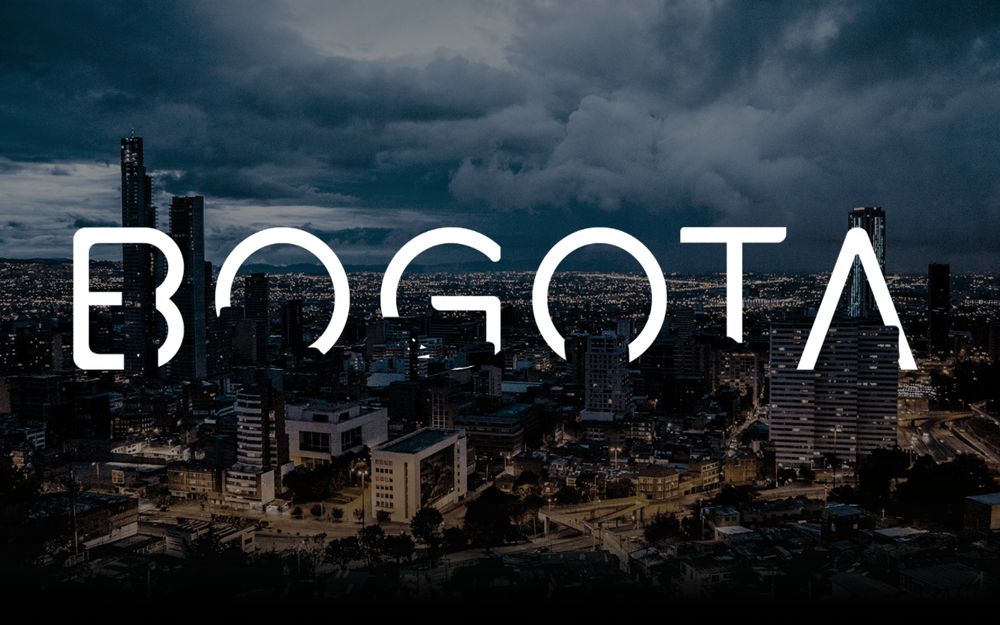
Fresh and clean free font for personal and commercial use. Perfect for posters, flyers, logos, packaging, brochures and etc.
Free Marson Display Font
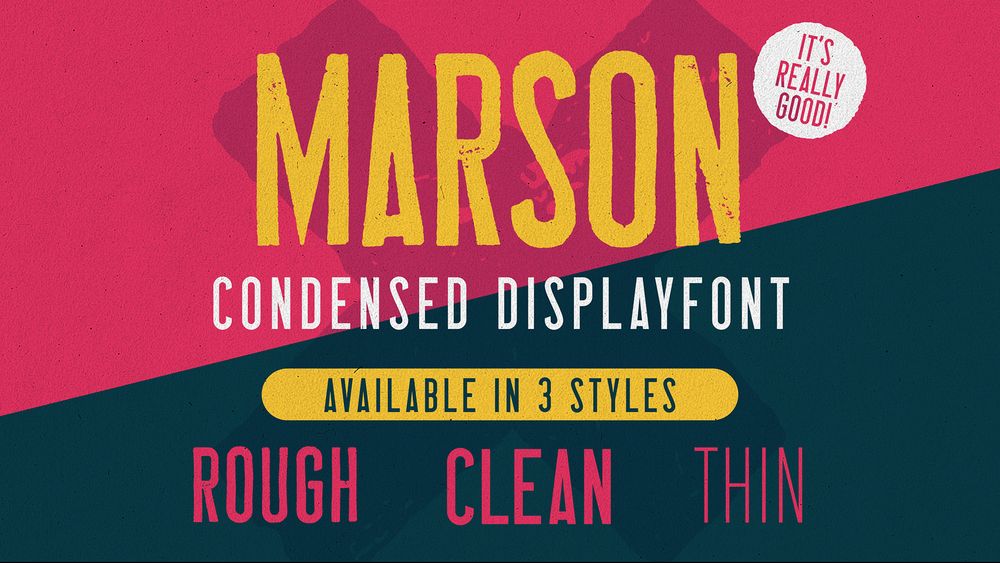
Free condensed and display font available in 3 styles. Perfect for posters, flyers, logos, packaging, brochures and etc.
Free Quantify Font
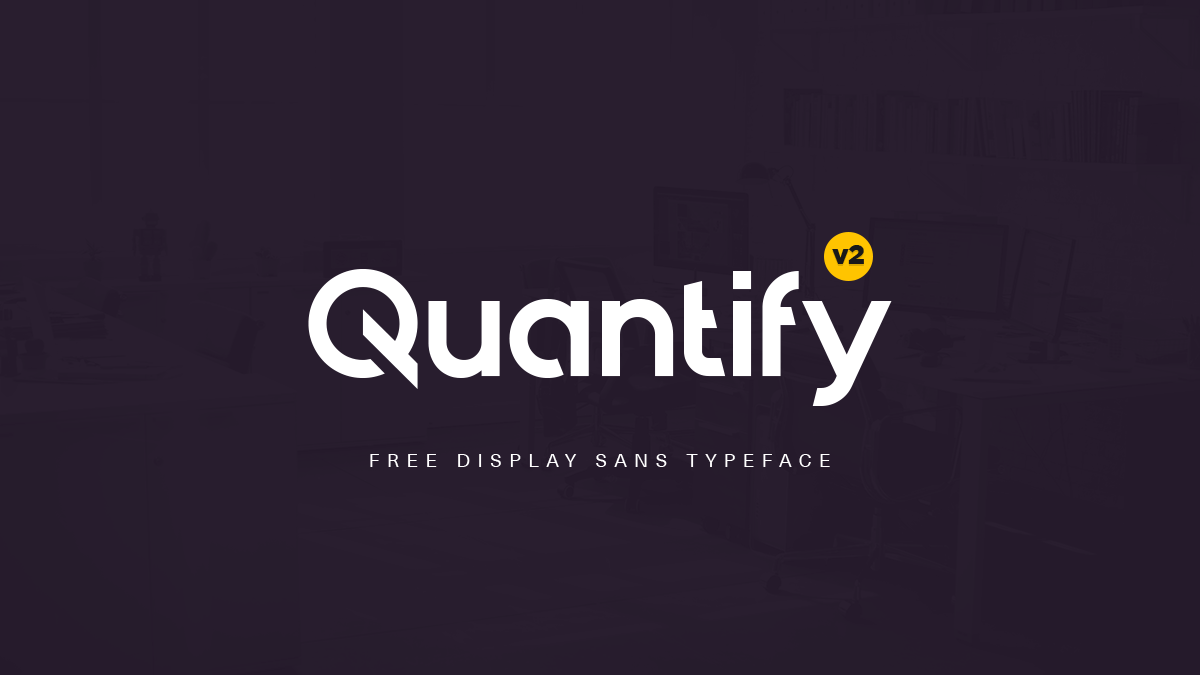
Quantify is a sans serif display typeface which includes all caps, lowercase and glyphs. The font can be described as multipurpose specially for logos, posters and flyers.
Free Myste Font
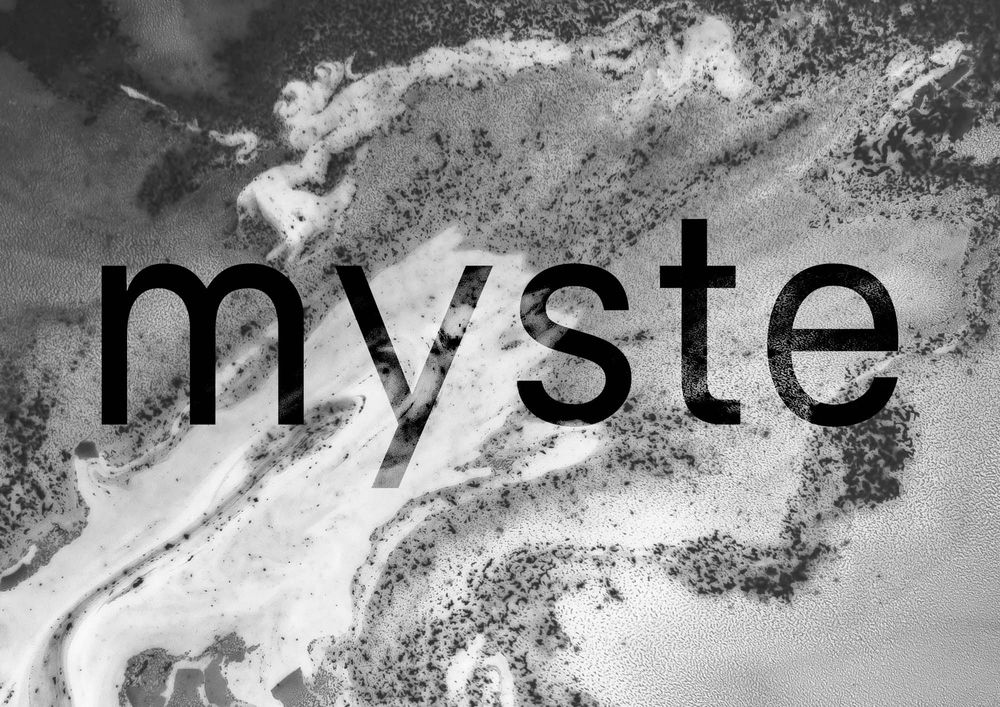
It can smoothly fit into your library of most used typefaces as it can easily be integrated into many of your design projects. Myste works for both heading and body texts. Best for posters, fyers, headlines, titles, covers and etc.
Free Bariol Font
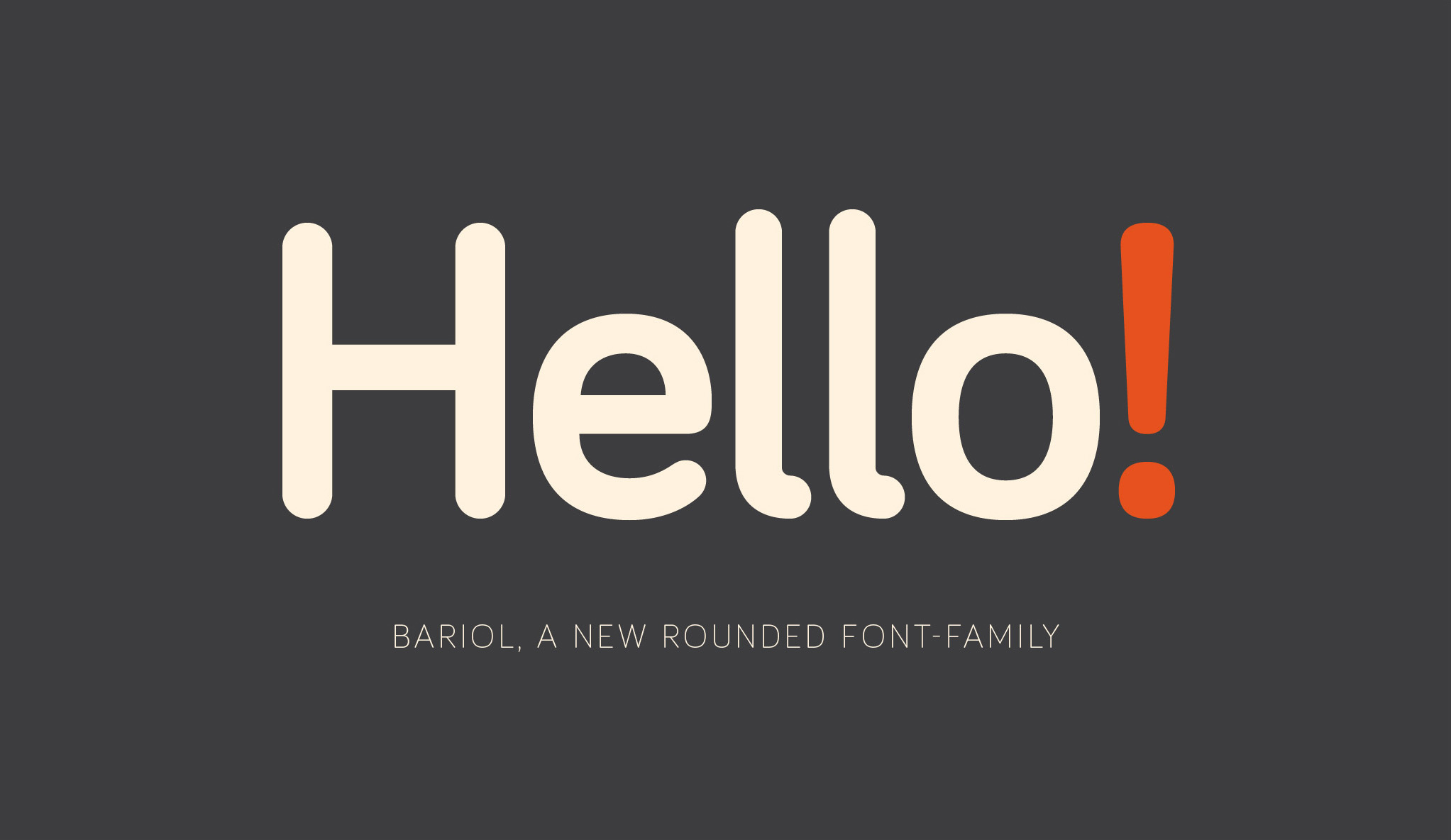
Bariol free rounded font family perfectly fit for posters, fyers, headlines, titles, covers and etc.
Free Genuine Font
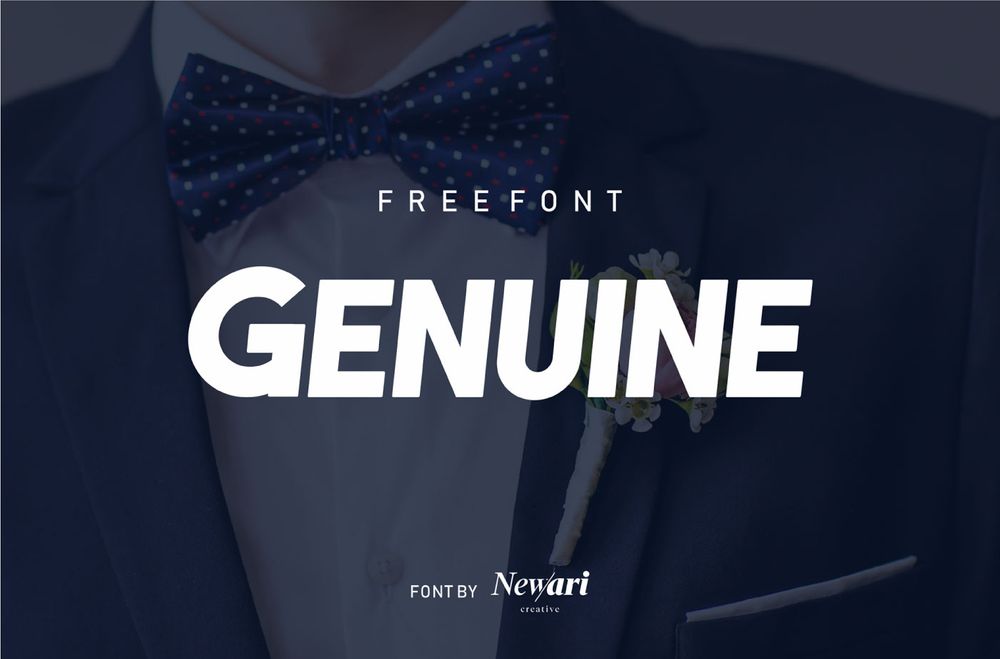
It is an bold and elegant font. Genuine offers an attractive tool for producing elegant decorative lettering for logos, book covers, posters, flyers, packaging and etc.
Free Form Font
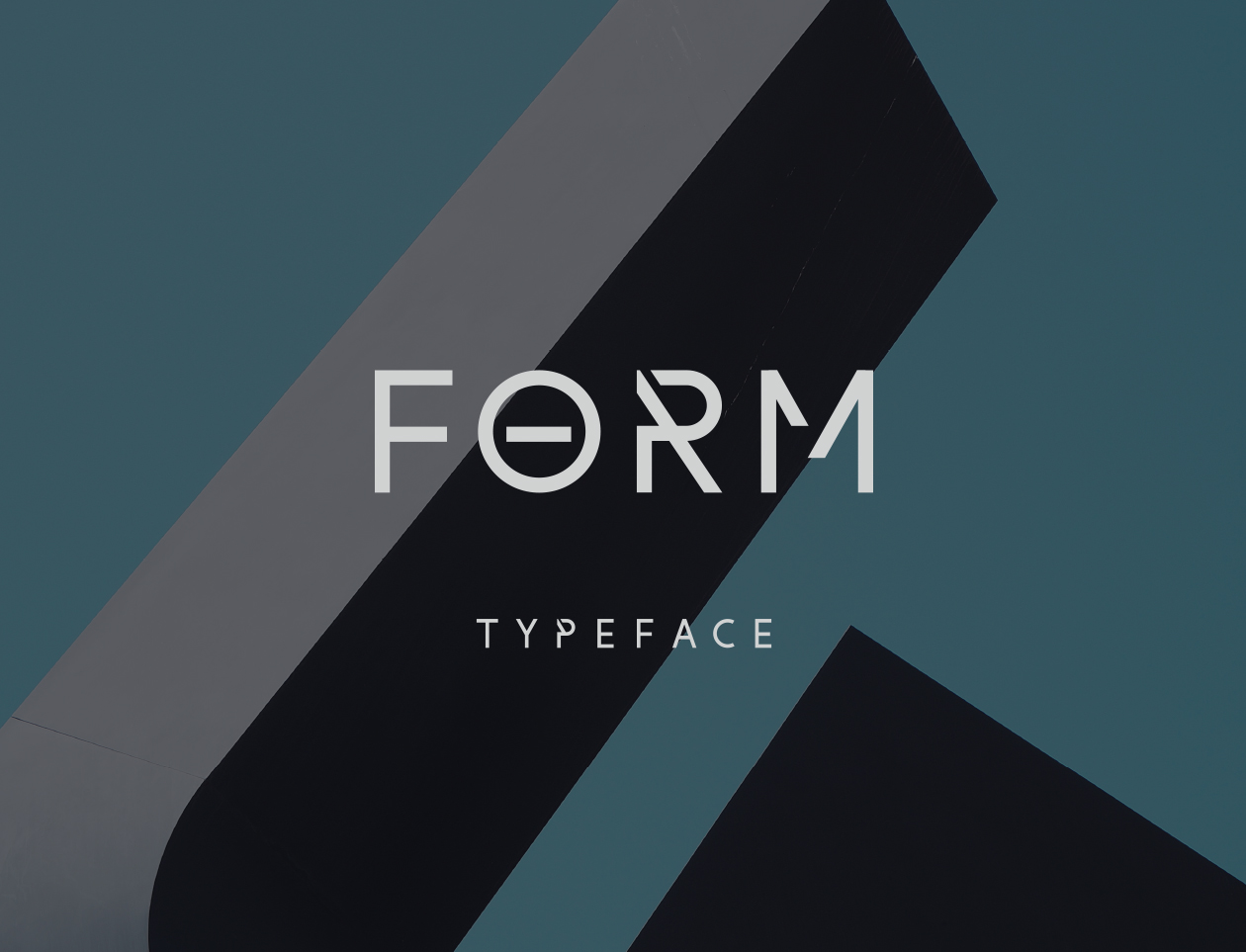
Uppercase elegant typeface with diagonal cuts. Sans serif font specially crafted for designers to create logos, posters, flyers, packages, brochures and etc.
Burford Extrude A
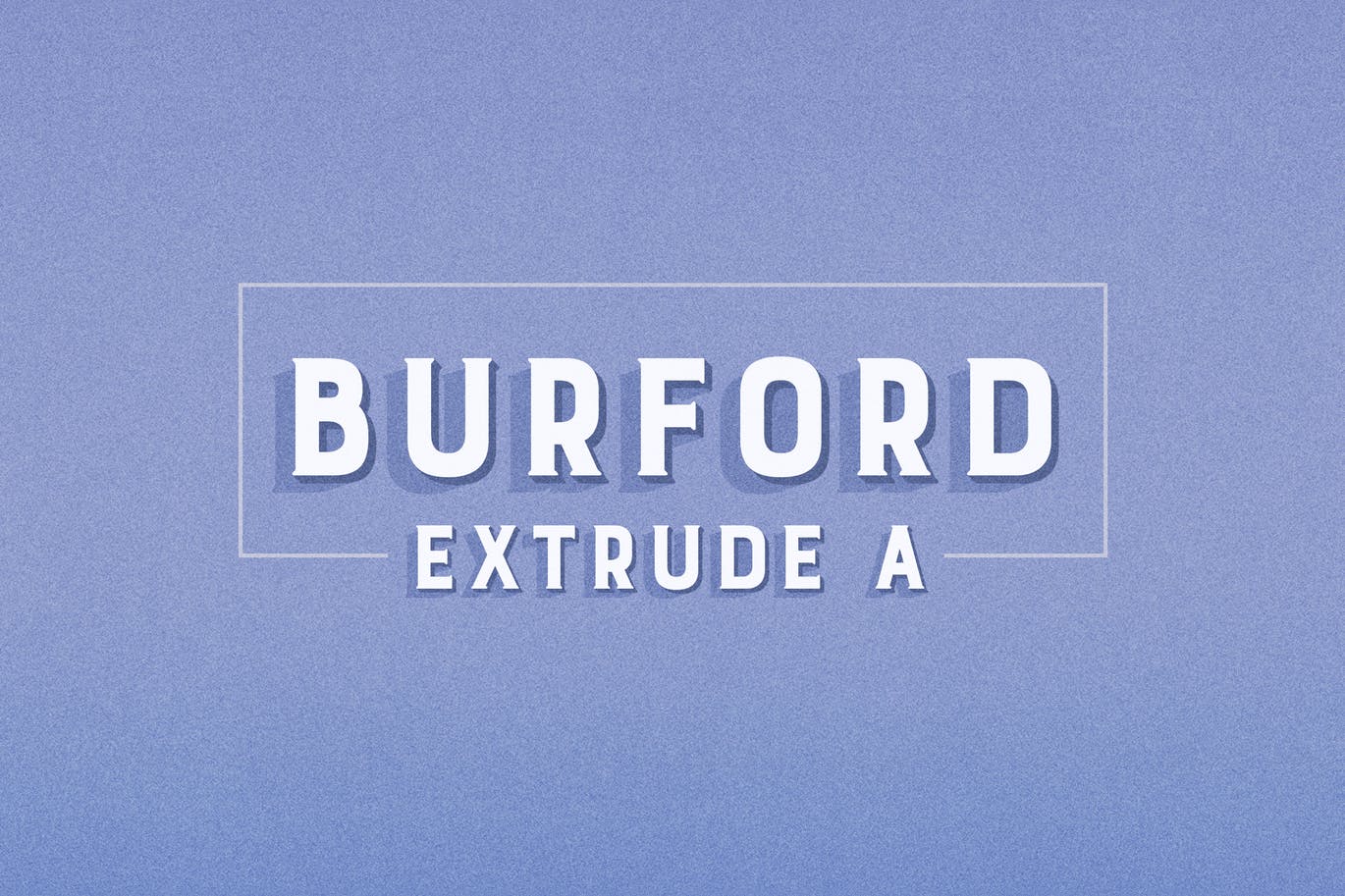
Burford is a beautiful layer-based font. Perfectly for posters, flyers, brochures, headlines, covers, titles and etc.
Sovereign Typeface
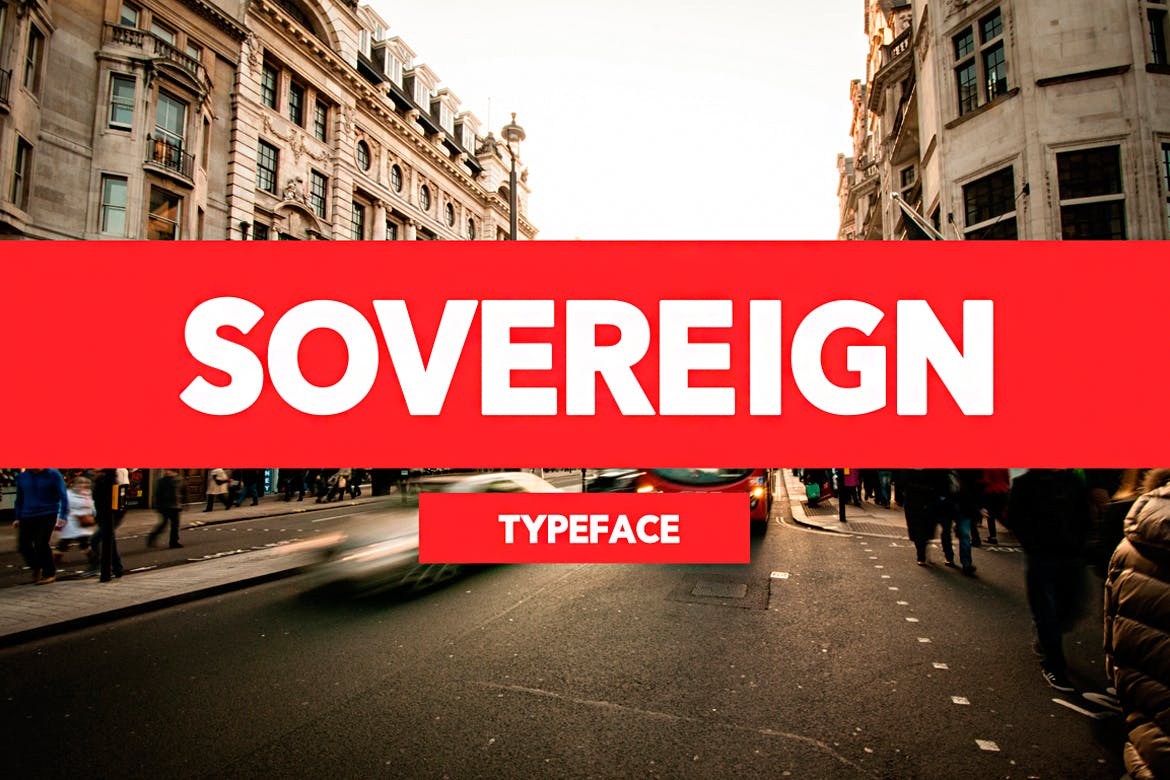
This is an amazing typeface for bold and modern ideas, creative thinking and urban lifestyle. Ideal for branding ideas, posters, flyers, logos, labels, t-shirts, brochures and etc.
Free Corduroy Slab Font
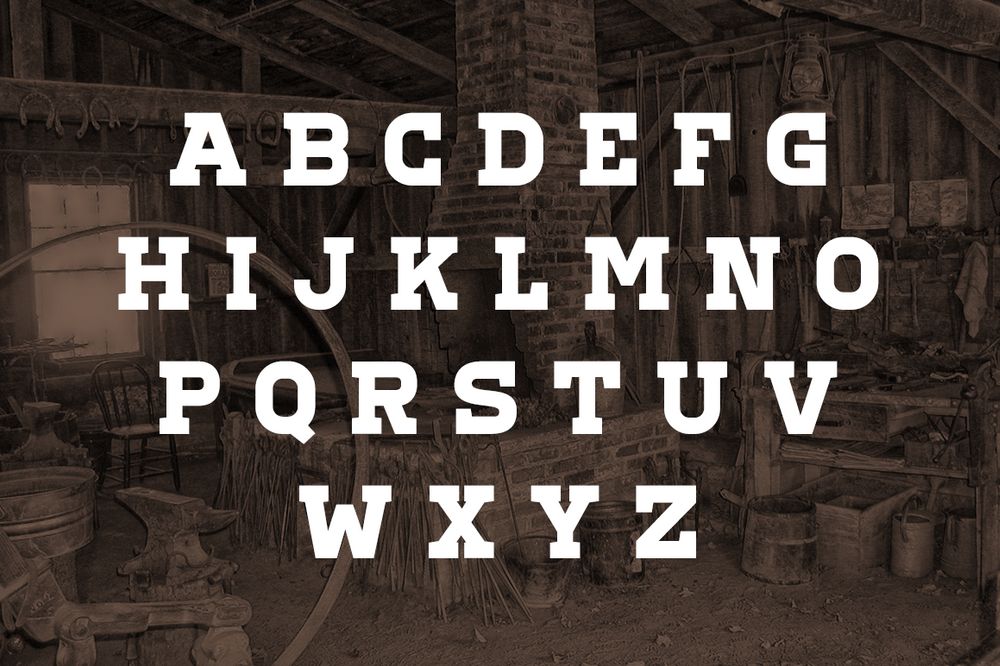
It is a free to use bold style sab serif font. perfect for designs where need a strong attraction like headlines, posters, flyers, lettering, logo design ans etc.
Free Tropikal Font
Tropikal is a modern rendition of an old-style serif typeface inspired from the nineteenth-century Philippine banknotes, newspapers and packaging designs. Perfect for headlines, titles, covers, posters, flyers, brochures and etc.
Cred Typeface
Cred is a unique fat typeface that includes multilingual uppercase letters, numbers and punctuation. It comes in regular and corroded styles. Ideal for event flyers, quirky branding projects and ’80s styled graphics.
Cyber – Technology Font
Cyber is a digital technology font. Ideal for futuristic projects, cyber monday promotion designs, flyers, posters, headers and etc.
Alfa – Minimal Science Font
Alfa is a futuristic minimal science fiction font. Ideal for any kind of futuristic projects, cyber monday promotion designs, flyers, posters, headers and etc.
Sprayer – Playful Font
Sprayer font inspired by graffiti style with a fun theme perfectly going for graffity poster, hip hop music, kids poster, flyer, children book, cartoon, comic and etc.
Ragrock Brush Font
Give your designs an authentic brush handcrafted feel. This font is perfectly suited to logo, typography quotes, magazines or book covers, website headers, flyers, clothing, branding, packaging design and etc.
Nextrue Font
Nextrue font is a sans serif font with a sleek and sporty look. This font is perfect for a variety of projects, such as branding, posters, flyers, displays, logo designs, magazine covers, product labels, clothing and etc.
Warxer Fraffiti Font
Give your designs an authentic brush handcrafted feel. This font is perfectly suited to signatures, stationery, logos, typography quotes, magazine or book covers, website headers, flyers, clothing, branding, packaging design and etc.
Gottar Adsset Signature Brush Font
Give your designs an authentic brush handcrafted feel. This font is perfectly suited to signatures, stationery, logos, typography quotes, magazine or book covers, website headers, flyers, clothing, branding, packaging design and etc.
Free Acworth Sans Serif Font
Acworth is a contemporary progressive typeface that explores mechanical robustness and dynamism. Inspired by the advancement of fast-moving technology culture. Best for poster, flyers, brochures, headings and etc.
Free Monas Grotesk Font